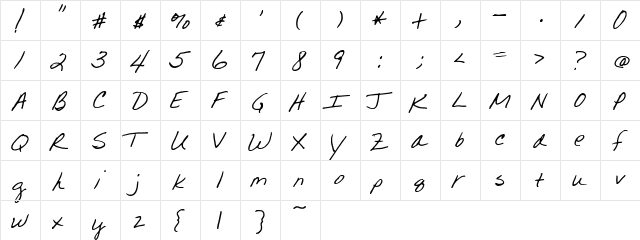
Lisa Regular
Design Context for Lisa Typeface
Lisa takes a measured approach to typography — its balanced proportions and neutral character make it a reliable workhorse for both digital and print work.
Pro Tip: Use Lisa in both headline and body roles to test its range before committing to a single application.